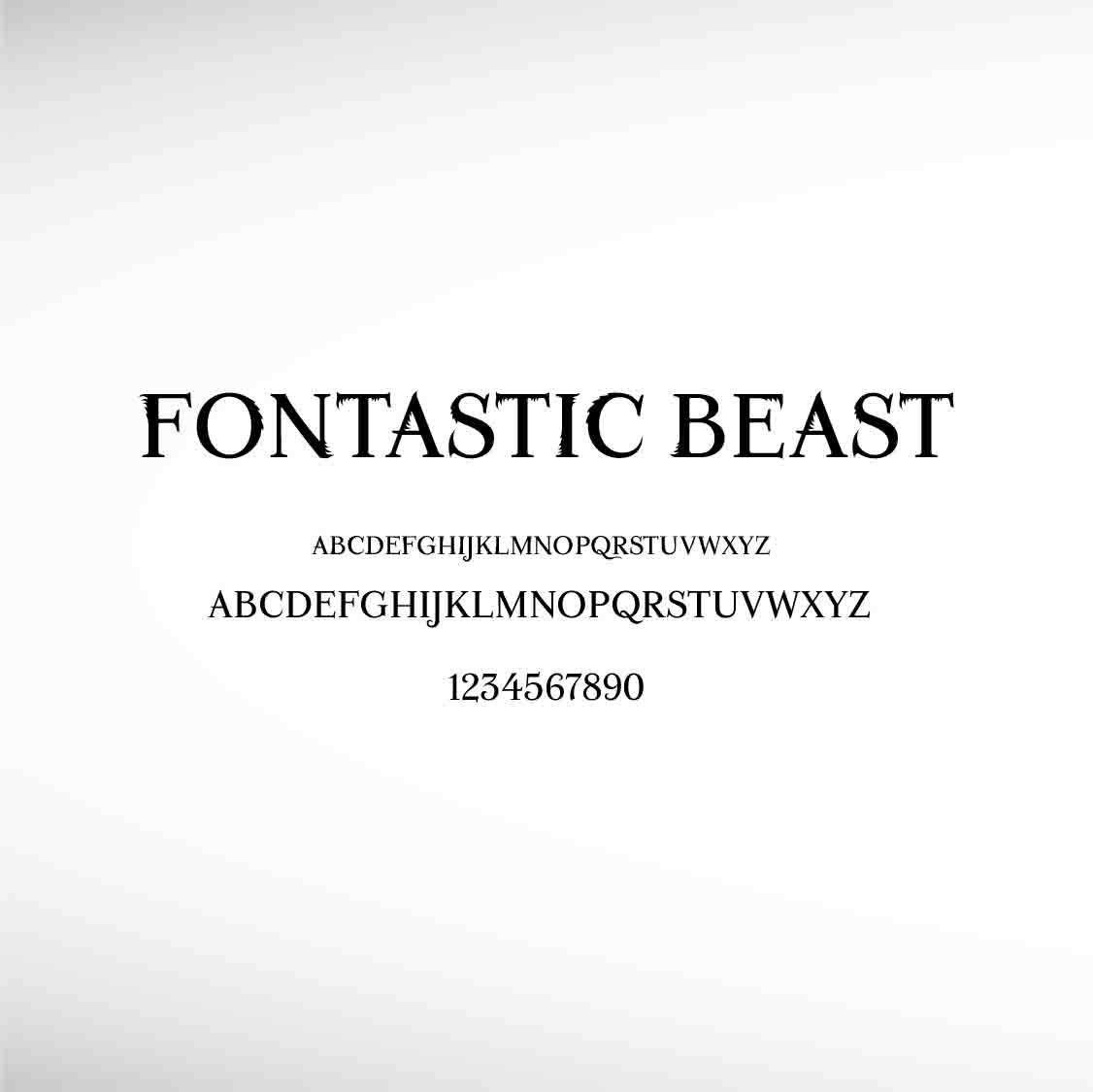
Fontastic Beast Font Free Download
Fontastic Beast is a font for Fantastic Beasts and Where to Find Them is a 2016 fantasy film directed by David Yates and written by J. K. Rowling. It is the..
Fontastic Beast is a font for Fantastic Beasts and Where to Find Them is a 2016 fantasy film directed by David Yates and written by J. K. Rowling. It is the first instalment in the ...